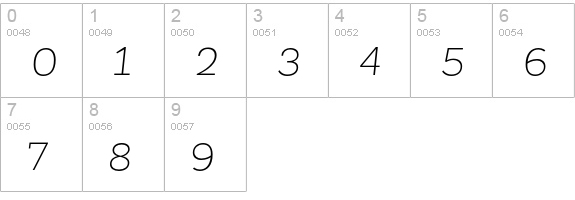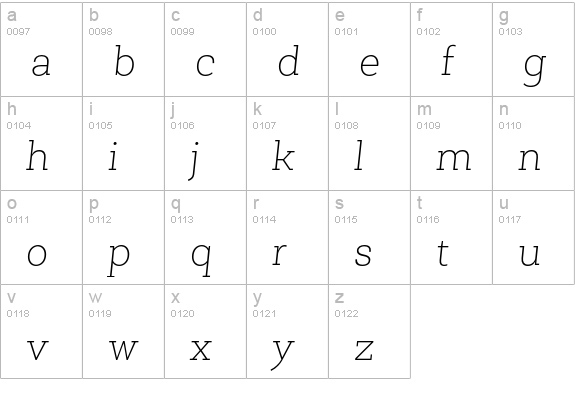
Newslab Thin Italic is a delicate, low-contrast, italic variant in the Newslab typeface family \xE2\x80\x94 well suited to fashion editorial, minimal branding, and high-contrast display.
Newslab Thin Italic font is a sleek and modern typeface that exudes elegance and sophistication. With its slender yet stylish design, this font is perfect for conveying a sense of refinement and professionalism in your projects. The italicized style adds a touch of flair and creativity to your text, making it stand out while maintaining a sense of gracefulness. The best part about Newslab Thin Italic font is that it is completely free to download at FontsMarket.com. This means you can enhance your designs with this stunning font without any cost involved. Whether you're working on a branding project, editorial design, or any other creative endeavor, Newslab Thin Italic font is sure to elevate the visual appeal of your work with its subtle charm and contemporary aesthetic. Download it today and unlock the potential of your designs with this exceptional typeface.